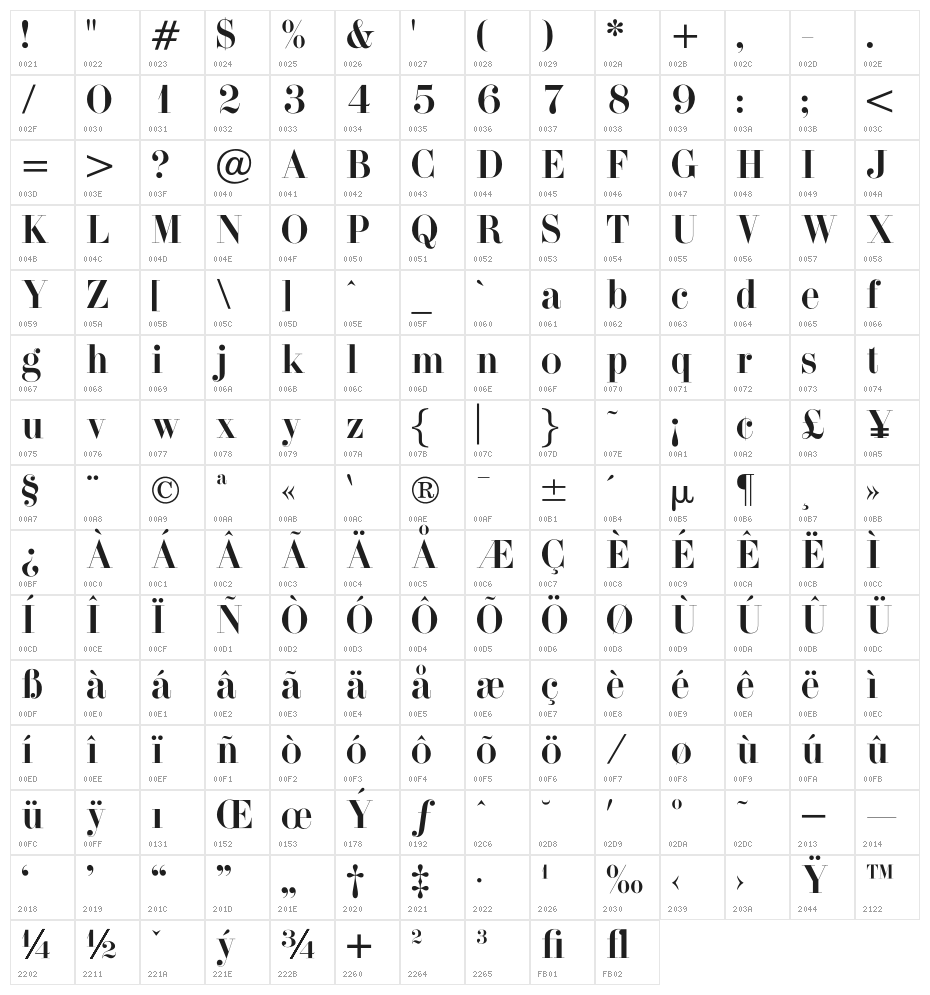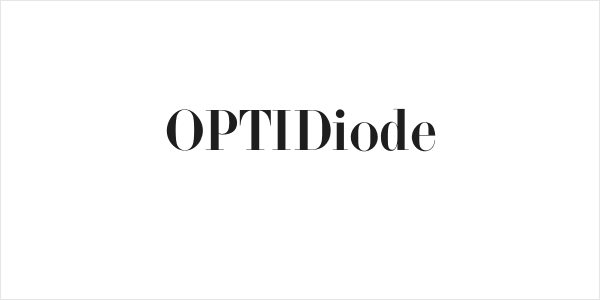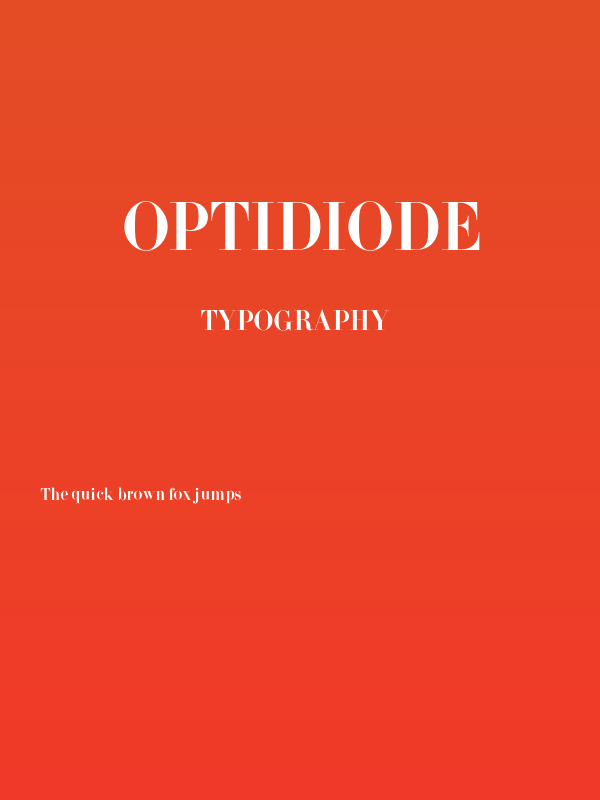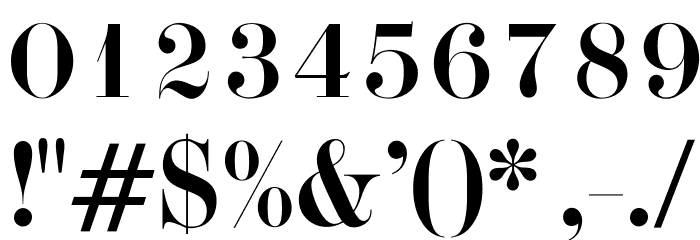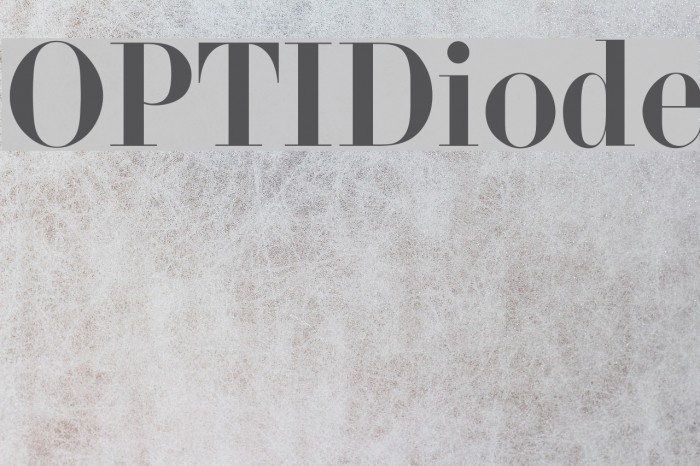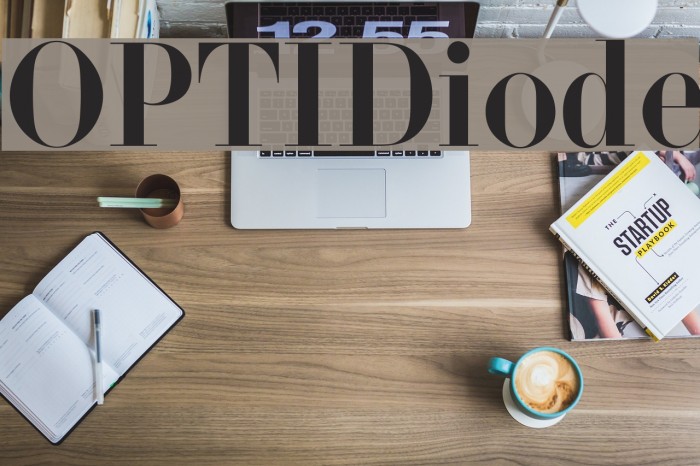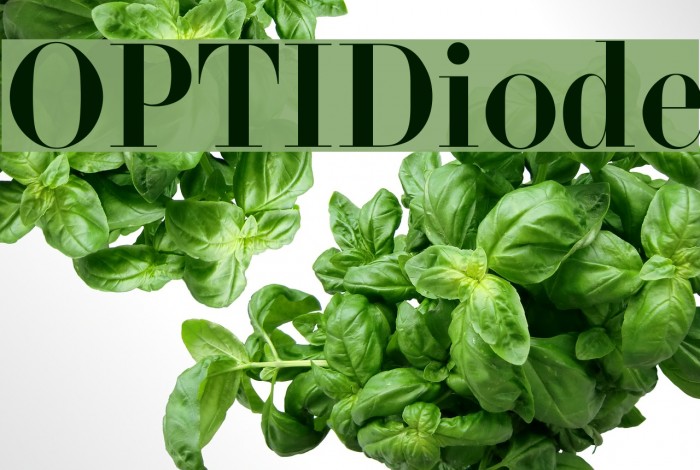
OPTIDiode Font
OPTIDiode Description
This font features a striking contrast between thick and thin strokes, giving it a bold and elegant appearance. The uppercase letters are tall and slender, with sharp serifs that add a touch of sophistication. The lowercase letters maintain a consistent style, with rounded forms that complement the uppercase characters. The numerals are distinct and easy to read, with a similar contrast in stroke thickness. Special characters are designed with the same attention to detail, ensuring a cohesive look across all glyphs. This font's high contrast and refined serifs make it suitable for projects that require a touch of elegance and formality.
| Overall Style | Elegant |
| Proposed Projects | Ideal for luxury branding, editorial design, wedding invitations, and high-end product packaging. |